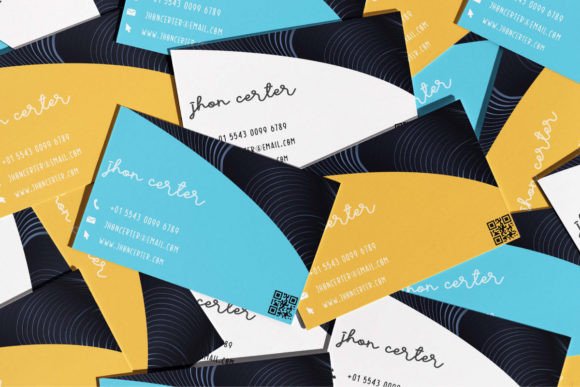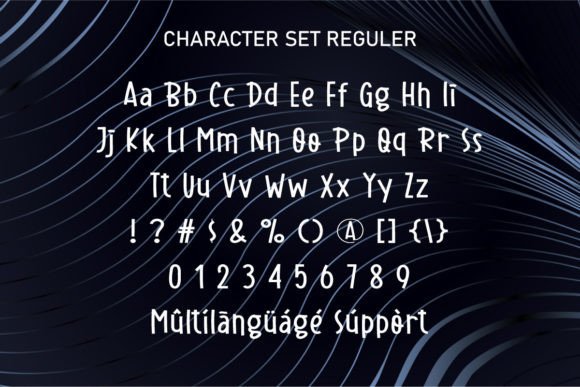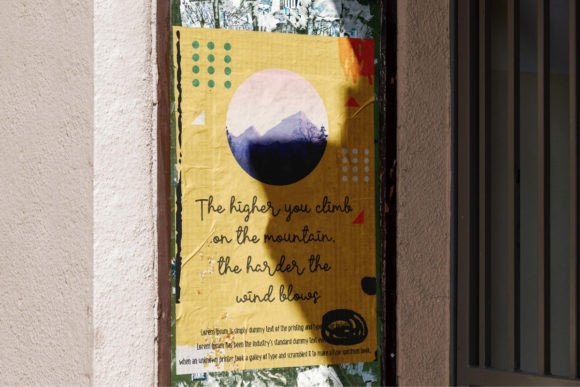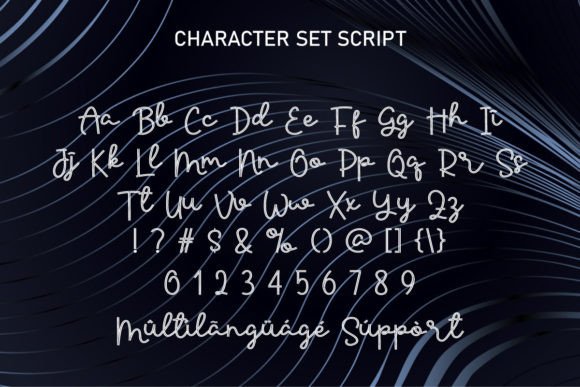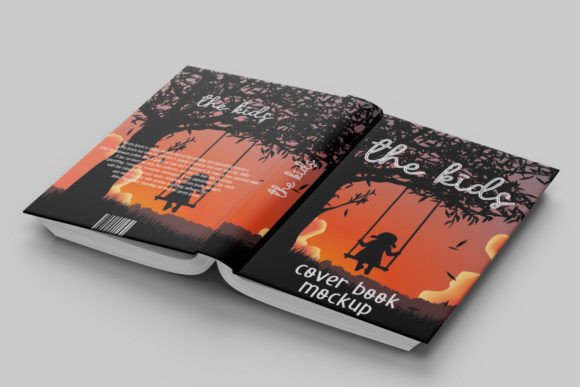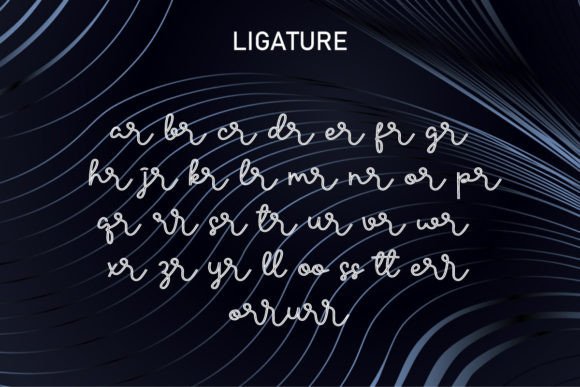
Dress Lines Duo Font: The Ultimate Combination of Fun and Modernity
In the world of typography, finding the perfect font that combines style, readability, and uniqueness can be a daunting task. However, with the Dress Lines Duo Font, designers and crafters can rejoice as they have stumbled upon a gem that ticks all the right boxes. This innovative font is a perfect blend of two different types of fonts, a funny sans display and script, with a special feature of stripes that makes it modern, unique, and easy to read.
The Perfect Blend of Fonts
The Dress Lines Duo Font is a thoughtfully crafted combination of two distinct fonts that work harmoniously together. The sans display font brings a playful and carefree vibe, while the script font adds a touch of elegance and sophistication. This blend of fonts creates a visually appealing contrast that can add depth and interest to any design project.
The Special Feature of Stripes
What sets the Dress Lines Duo Font apart from other fonts is its unique feature of stripes. The stripes add a modern and edgy touch to the font, making it perfect for designers who want to create bold and eye-catching designs. The stripes also help to break up the text, making it easier to read and understand. This feature is particularly useful for headlines, titles, and other design elements where you want to make a statement.
Versatility and Readability
One of the standout features of the Dress Lines Duo Font is its versatility and readability. The font is designed to be easy to read, making it perfect for body text, headings, and titles. The clear and clean lines ensure that the text is legible, even at small font sizes. This makes it an excellent choice for designers who want to create designs that are both visually appealing and functional.
Ideal for Many Projects
The Dress Lines Duo Font is an excellent choice for a wide range of design projects. Whether you’re working on a logo, brochure, poster, or website, this font is sure to impress. Its modern and unique design makes it perfect for:
- Brochures and catalogs
- Websites and social media graphics
Why Designers and Crafters Love Dress Lines Duo Font
Designers and crafters love the Dress Lines Duo Font for its unique combination of style, versatility, and readability. Here are just a few reasons why:
- High-quality design: The font is carefully crafted to ensure that it looks great in any design.
- Flexibility: The font can be used for a wide range of design projects, from logos to websites.
- Unique and modern: The font’s modern design and unique features make it stand out from other fonts.